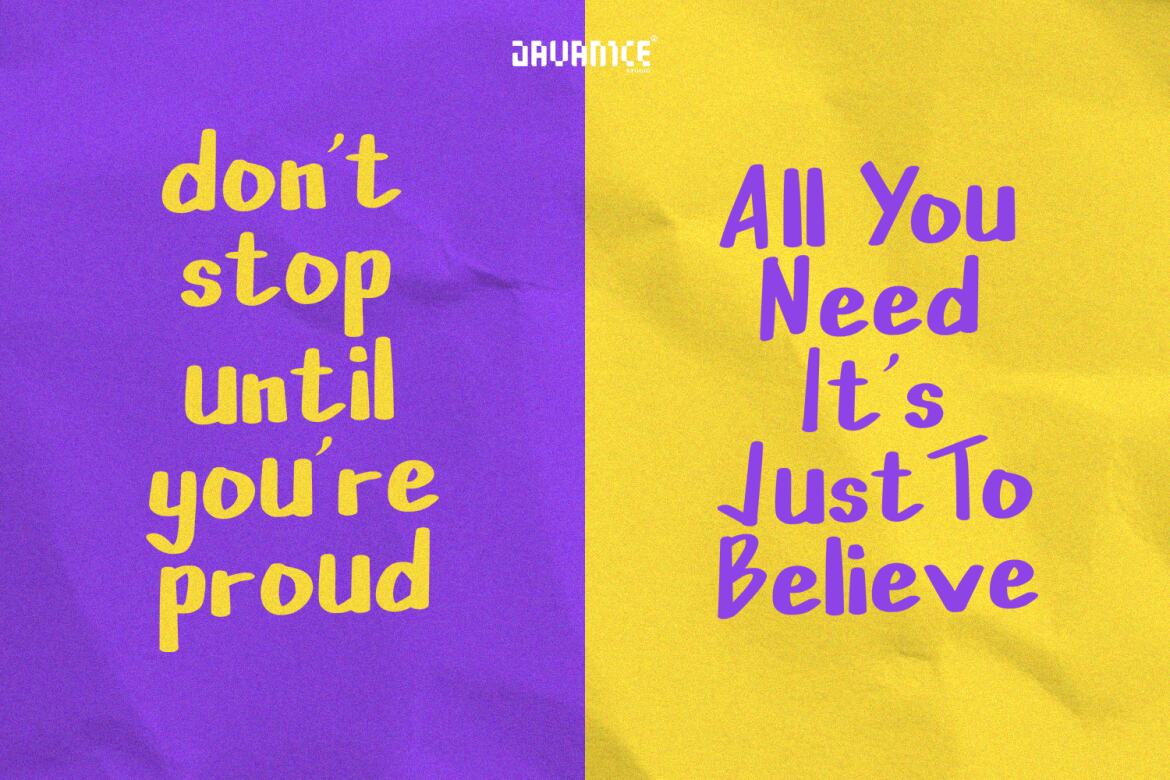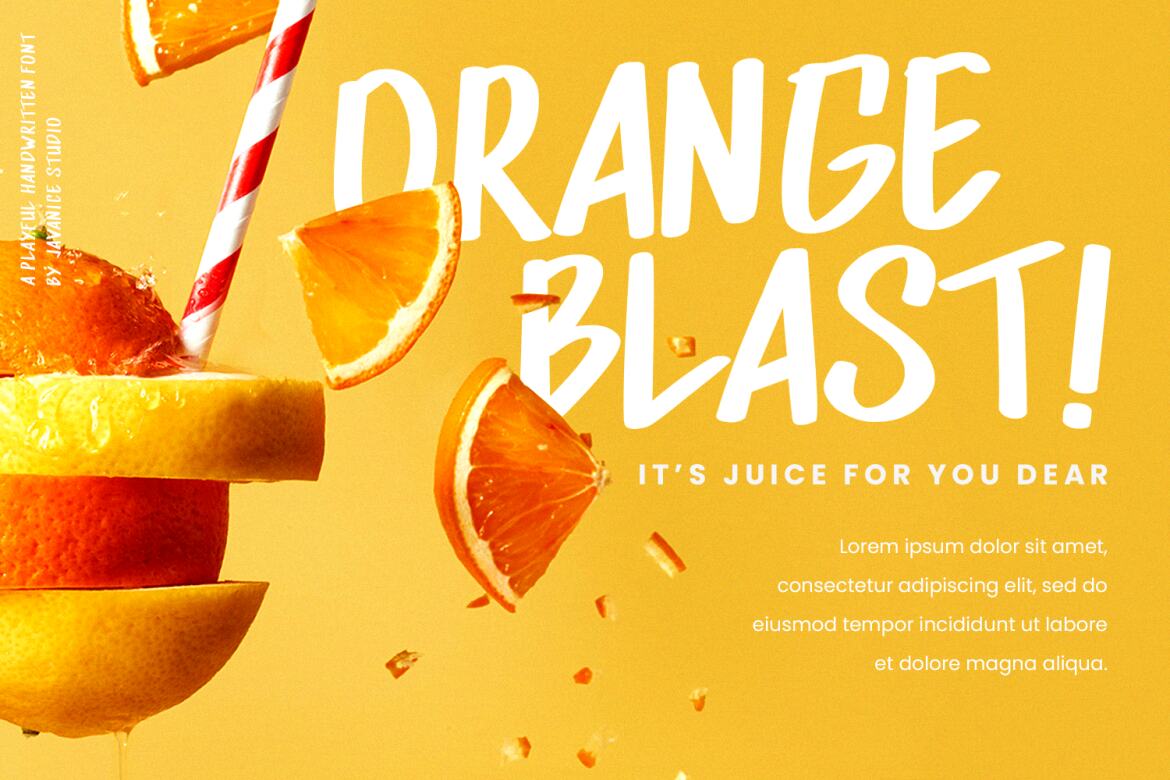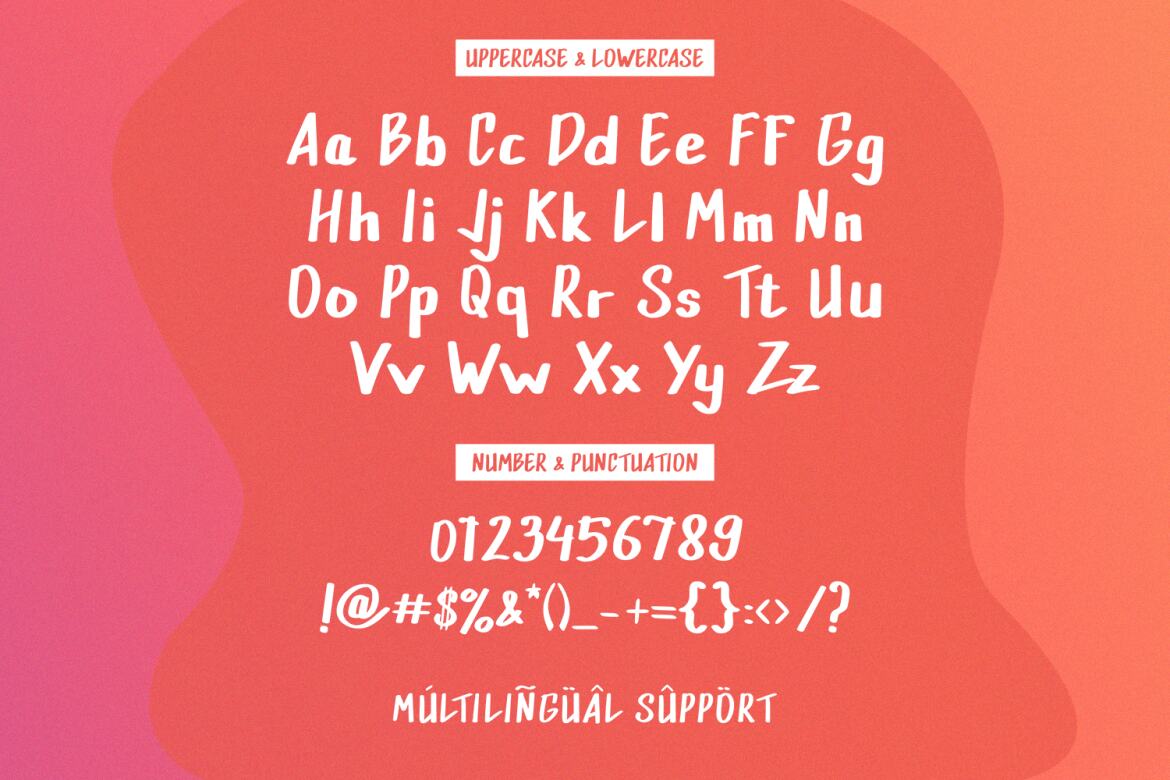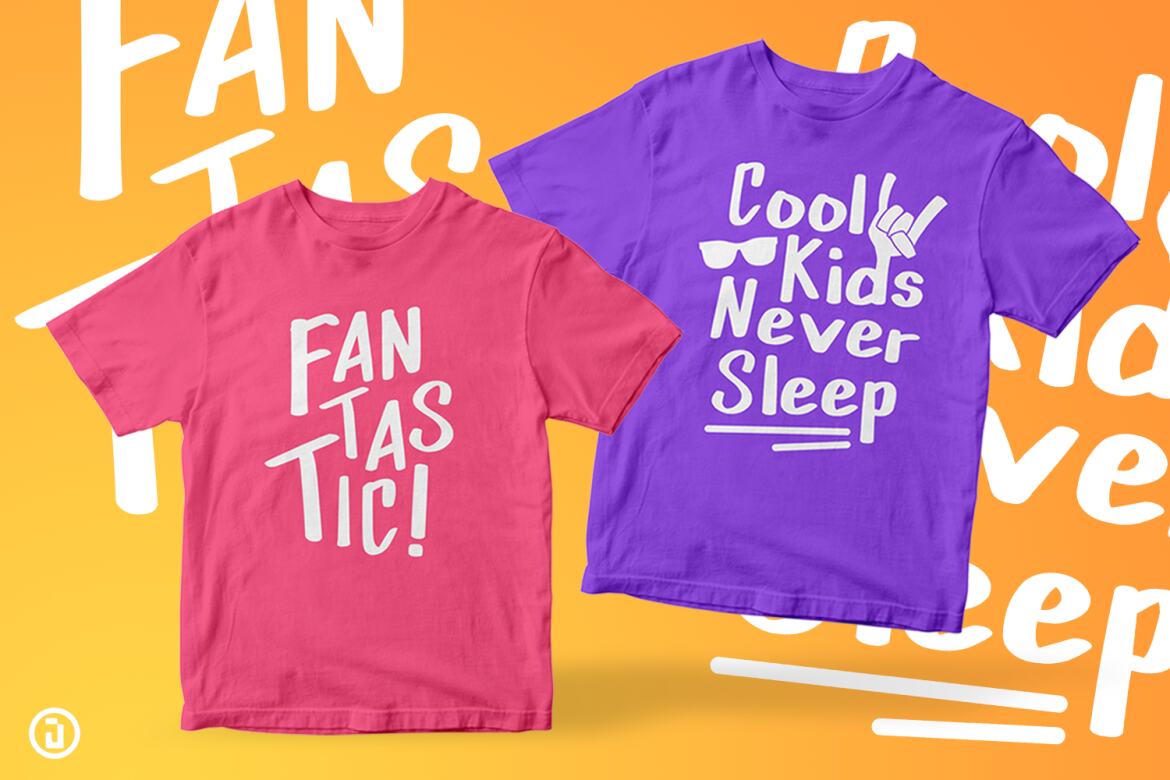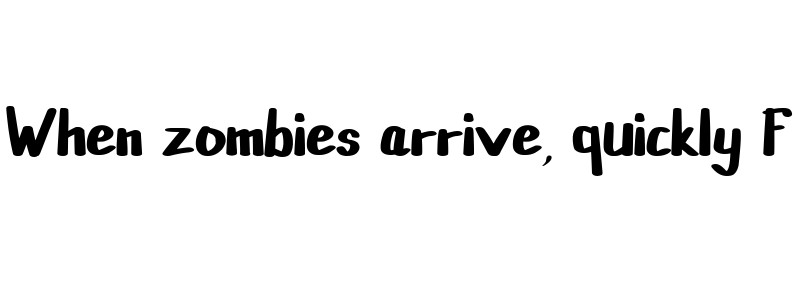
Nite Beezy FREE Font
Nite Beezy
Introducing Nite Beezy by Javanice Studio
Nite Beezy is A Playful Handwritten Font
Nite Beezy is perfect for branding project, apparel, labels, magazines, books, greeting / wedding cards, packaging, fashion, make up, stationery, and any type of advertising purpose or just used to express words above the background.